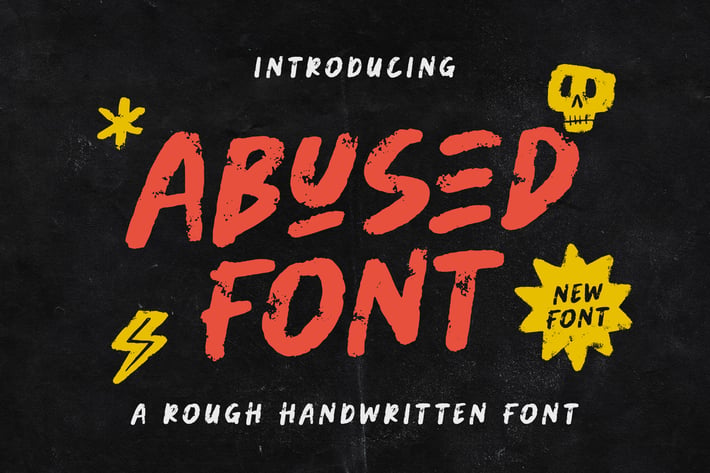
Abused Font
Abused A Rough Handwritten Font
Abused Font can be used for various media like Halloween events, horror events, logos, packaging, poster, movie titles, book titles, social media, branding, and others.